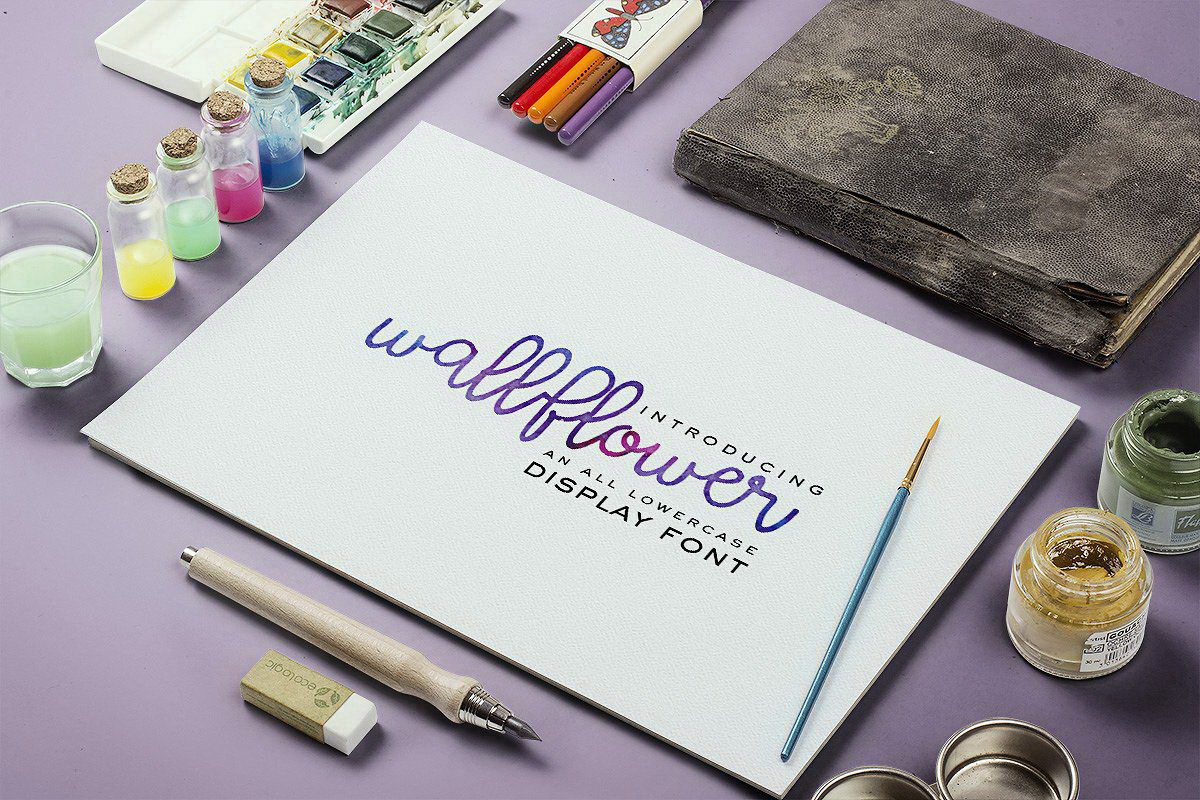
Wallflower Lowercase is a simple script great for display or logo use. Lowercase letters only. Includes OTF lowercase font file extended version coming soon 🙂
Designed by OnTheSpotStudio